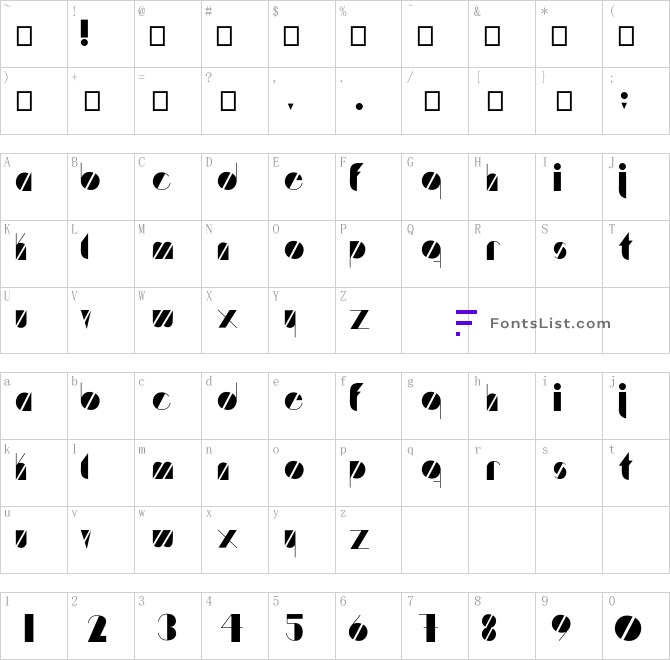
- Font Name:Artistica
Artistica.otf is a very beautiful artistic font, Artistica.otf is widely used in the design and printing of various books and pictures,Artistica.otf has a strong visual impact,Artistica.otf is a commonly used font in newspapers, magazines and books, and is used in posters, e-commerce Poster design, store design, logo design, font design and other fields.Artistica.